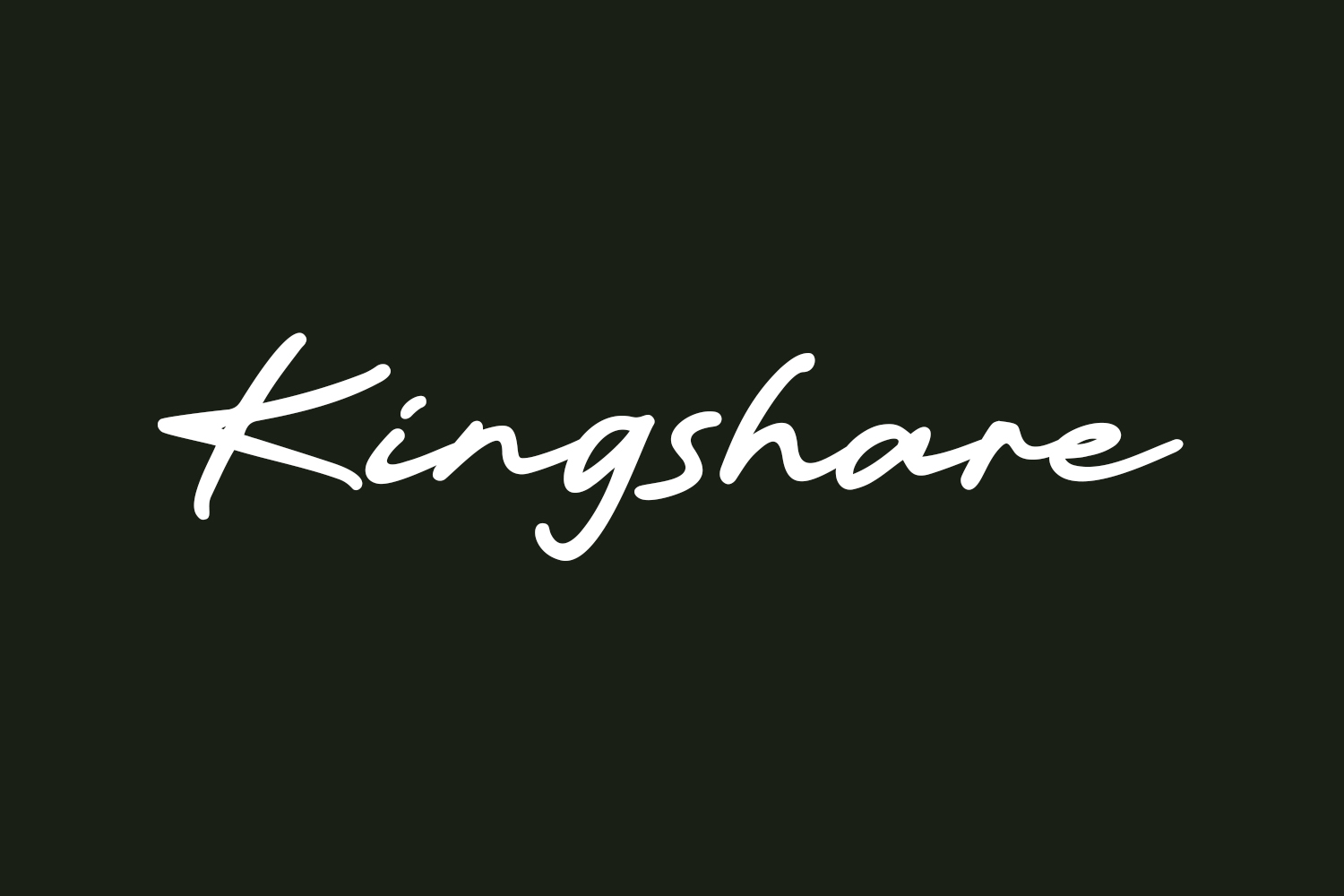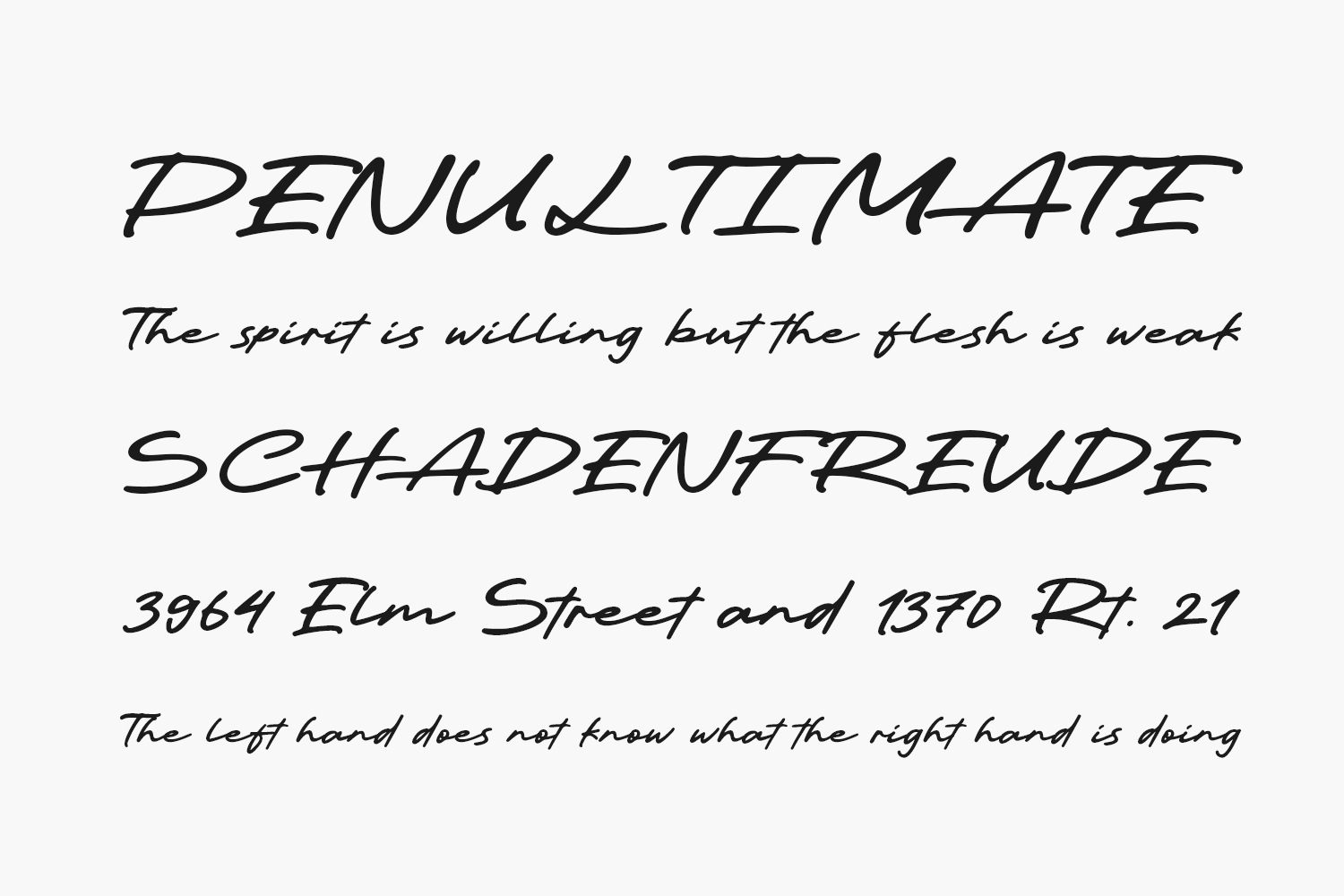
Meet Kingshare Free Font, a sleek, contemporary script font blending cleanliness with elegance. Ideal for posters, logos, magazines, book covers, banners, and beyond, its versatility knows no bounds! Elevate your designs with this remarkable font, seamlessly adaptable to a wide array of projects. Infuse your creative concepts with its charm and watch them shine. Download the font for free if you need it for personal use or purchase the full version for commercial use.